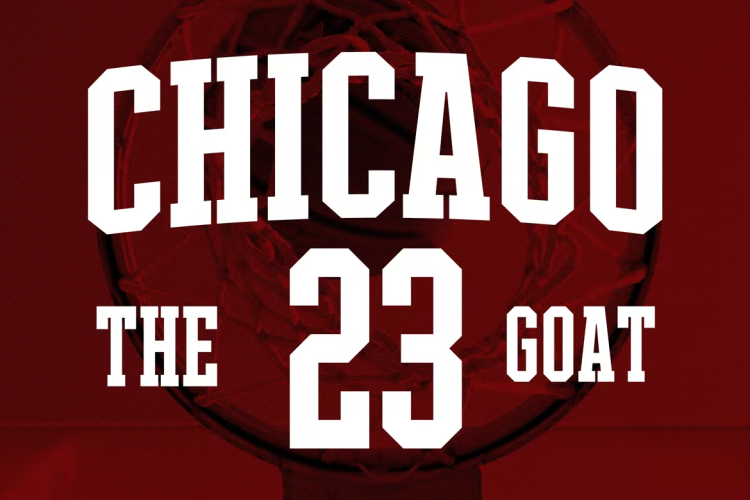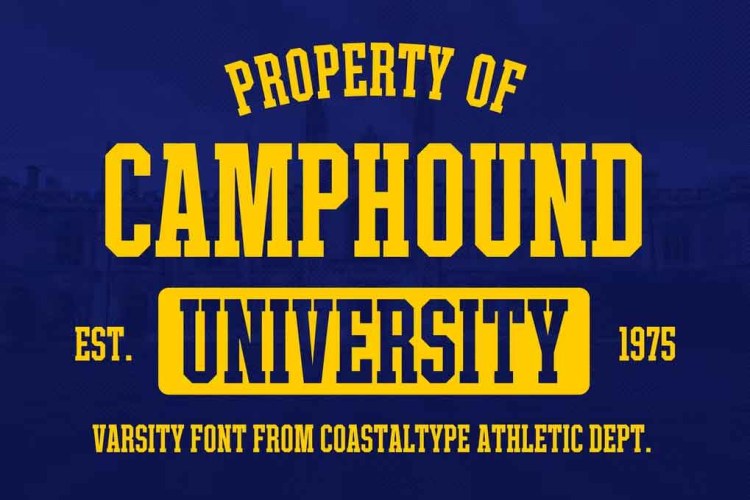
Camphound Font
Camphound is a display slab serif font inspired by varsity, college and university sports as well as the military. Camphound is great for sports, sports teams, schools,…
Camphound is a display slab serif font inspired by varsity, college and university sports as well as the military. Camphound is great for sports, sports teams, schools, display work, quotes, posters, acronyms and headings.
Where Camphound Font works best
Camphound Font gives long-form text a classic, trustworthy rhythm — ideal for magazine spreads, annual reports and book interiors.
Pair Camphound Font with generous letter-spacing for wordmarks in fashion, hospitality, wine and jewellery branding.
Use Camphound Font for slide titles in Keynote, PowerPoint or Google Slides to add authority without looking dated.
What is Camphound Font good for?
Camphound Font is a Serif Fonts typeface tagged Display, Poster, Professional, Serif. It works well for headlines, logos, posters, social media graphics and branding projects that need a distinctive serif fonts look.